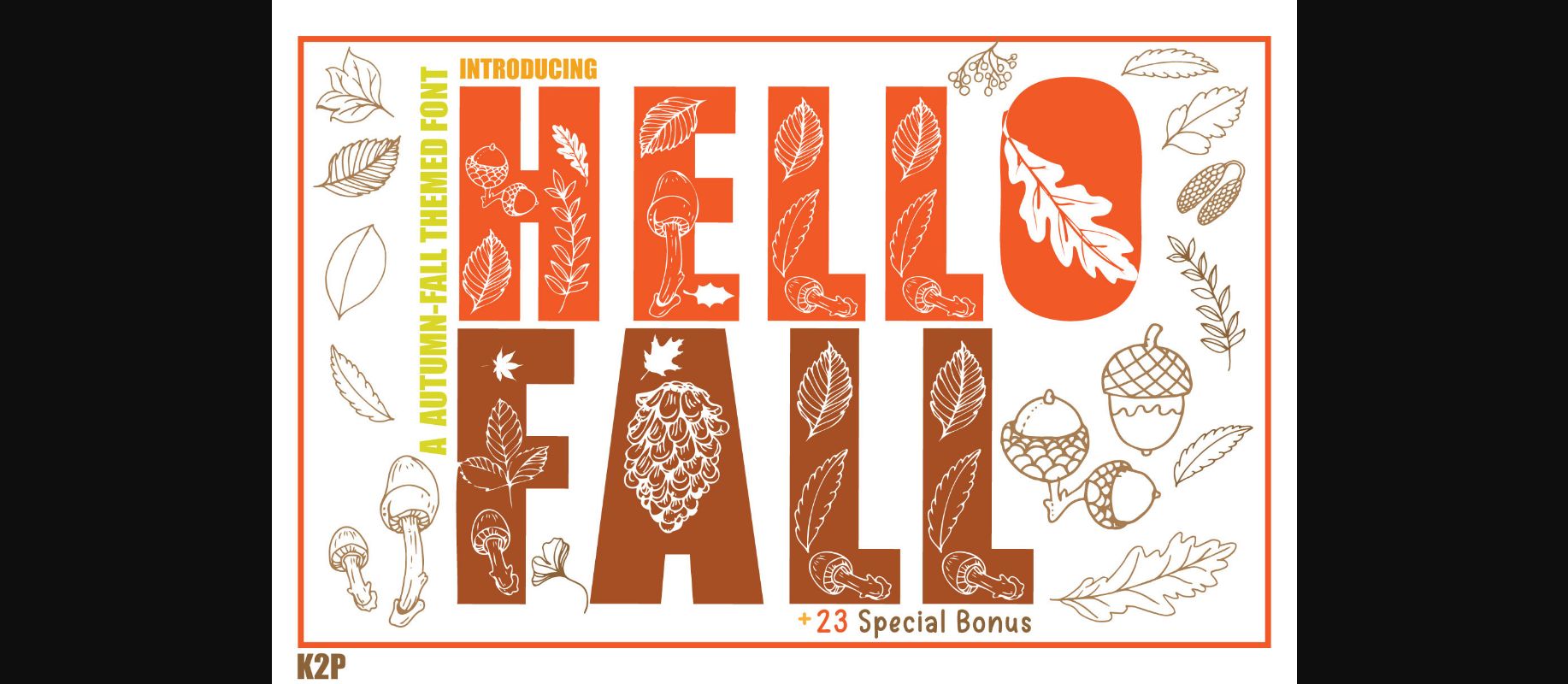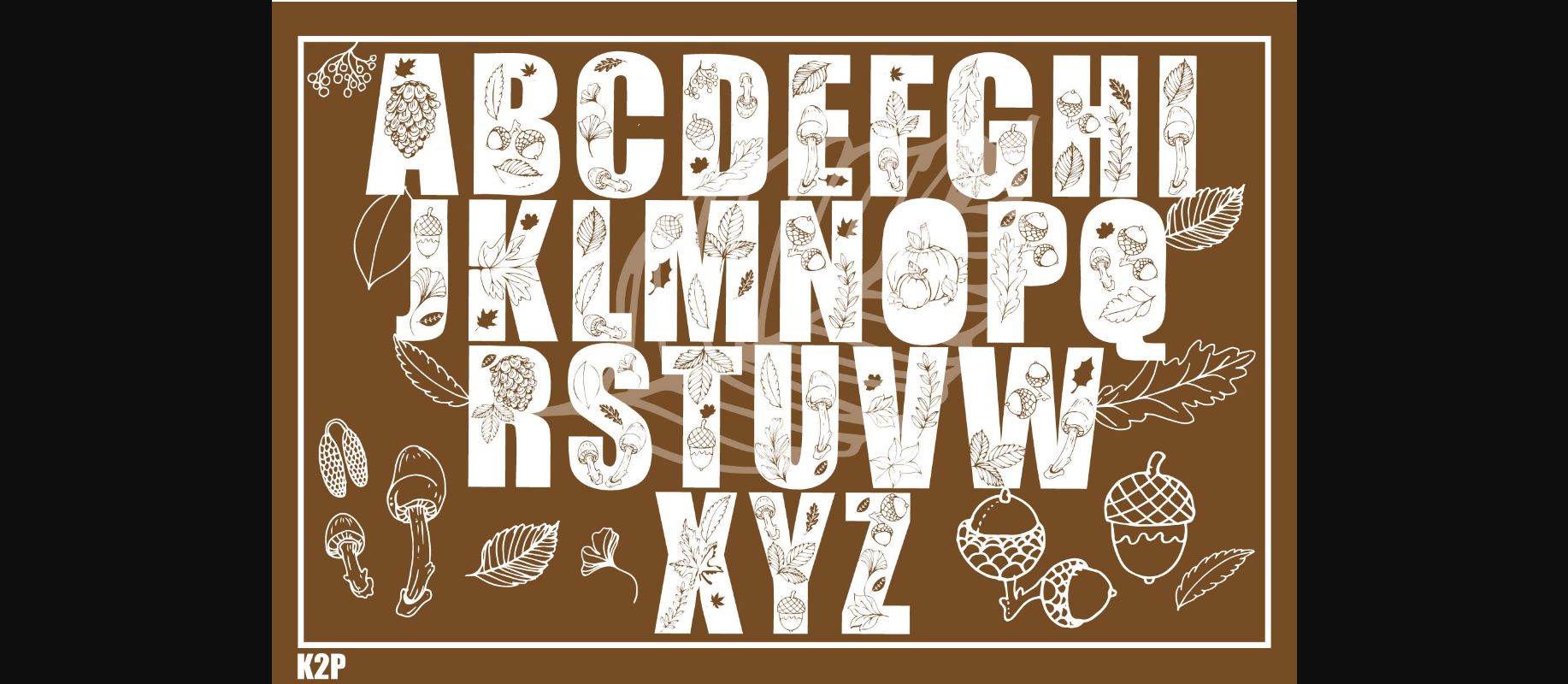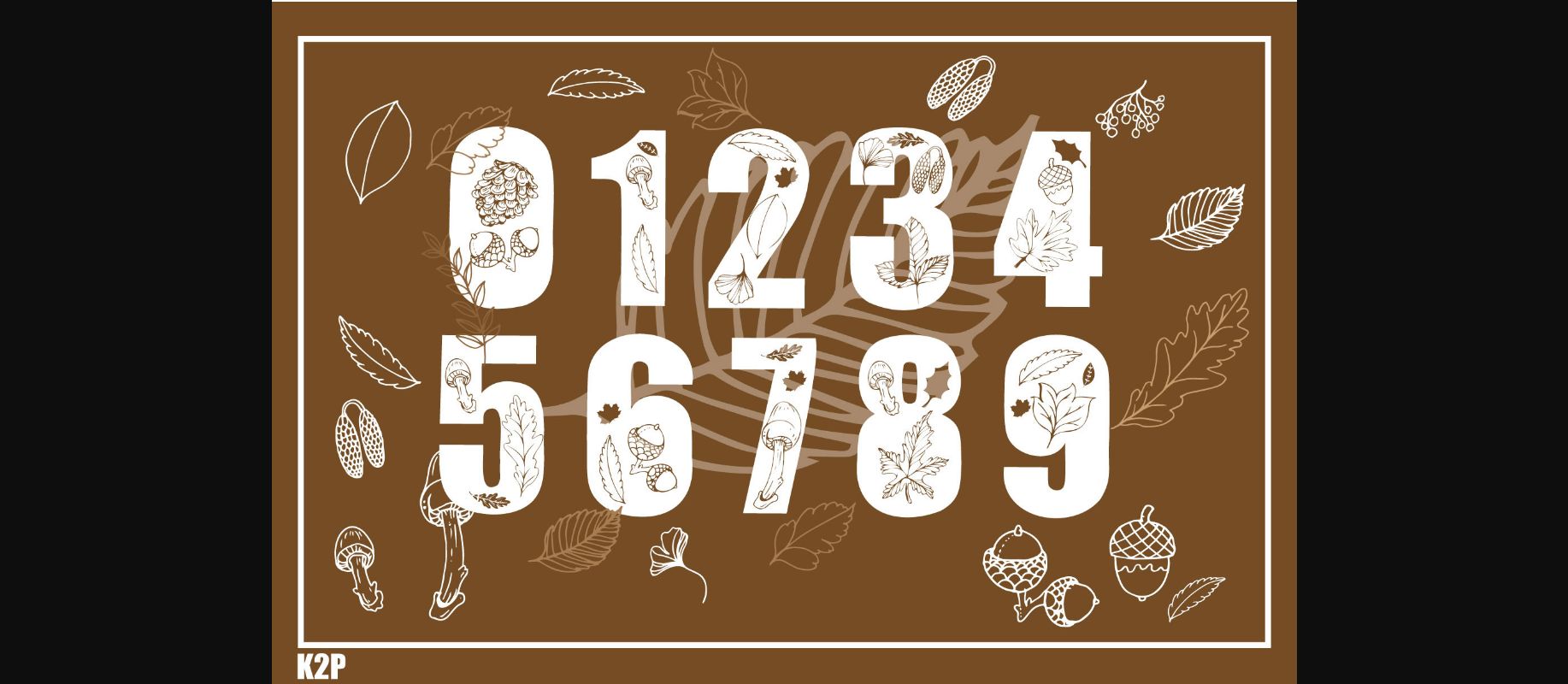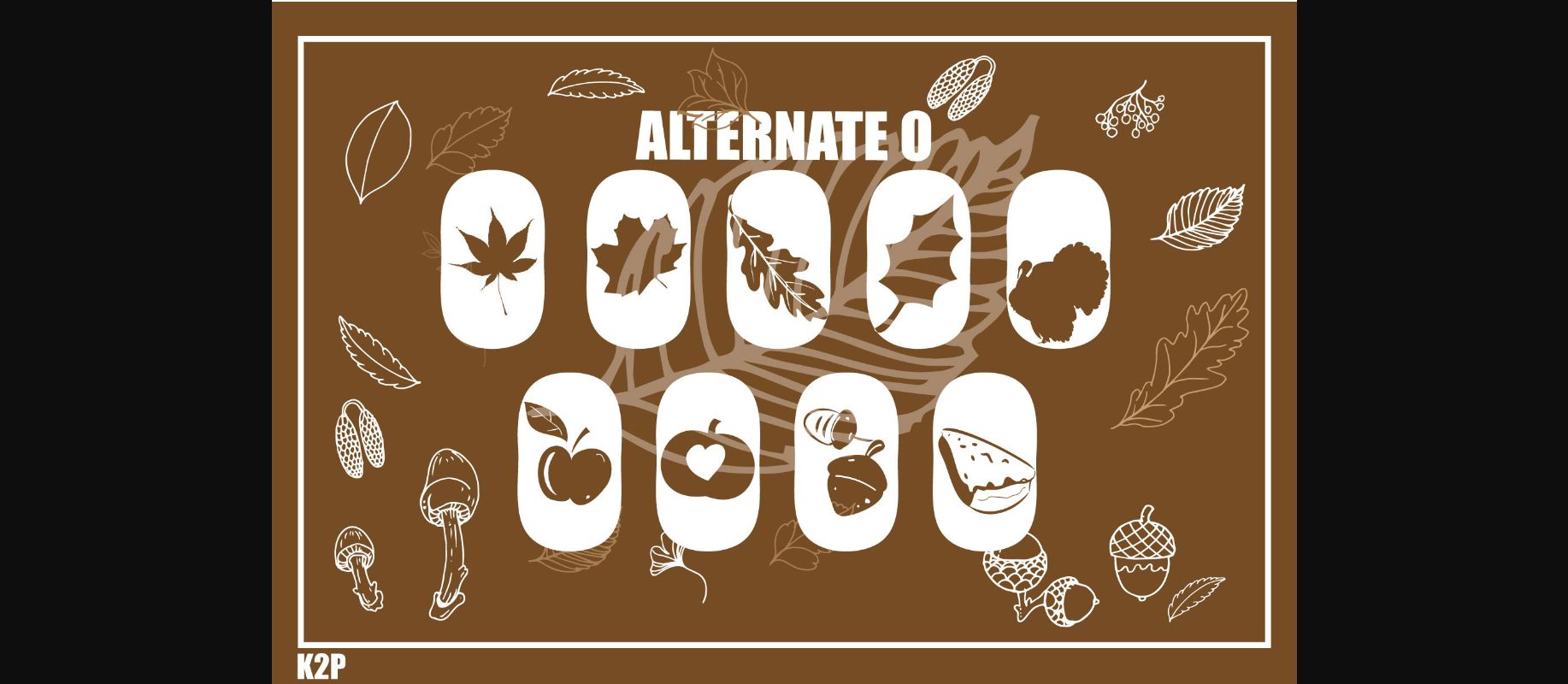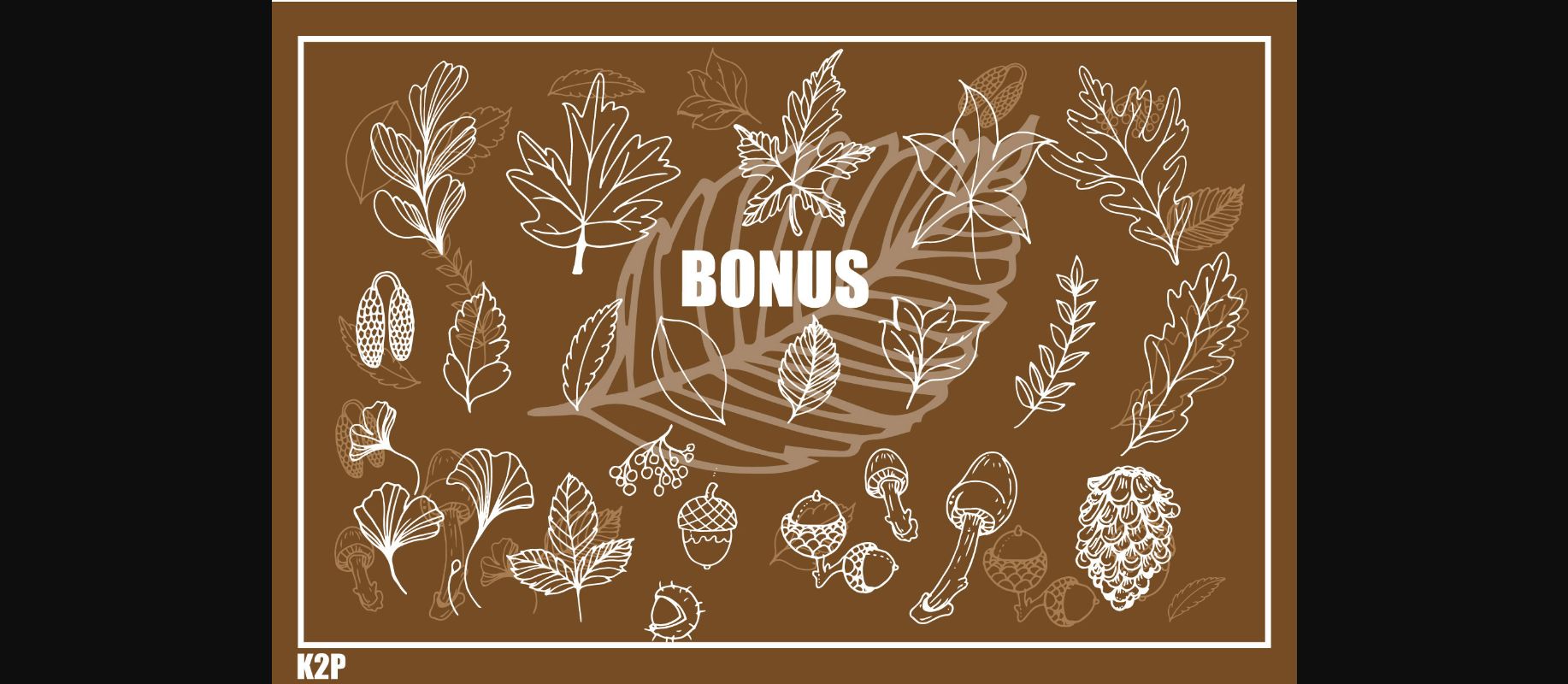
Hello Fall Font
About Hello Fall Font
Hello Fall is a thick lettered, and incredibly unique decorative font. It can be used for various design ideas, particularly those related to the Fall season. This font is PUA encoded which means you can access all of the glyphs and swashes with ease